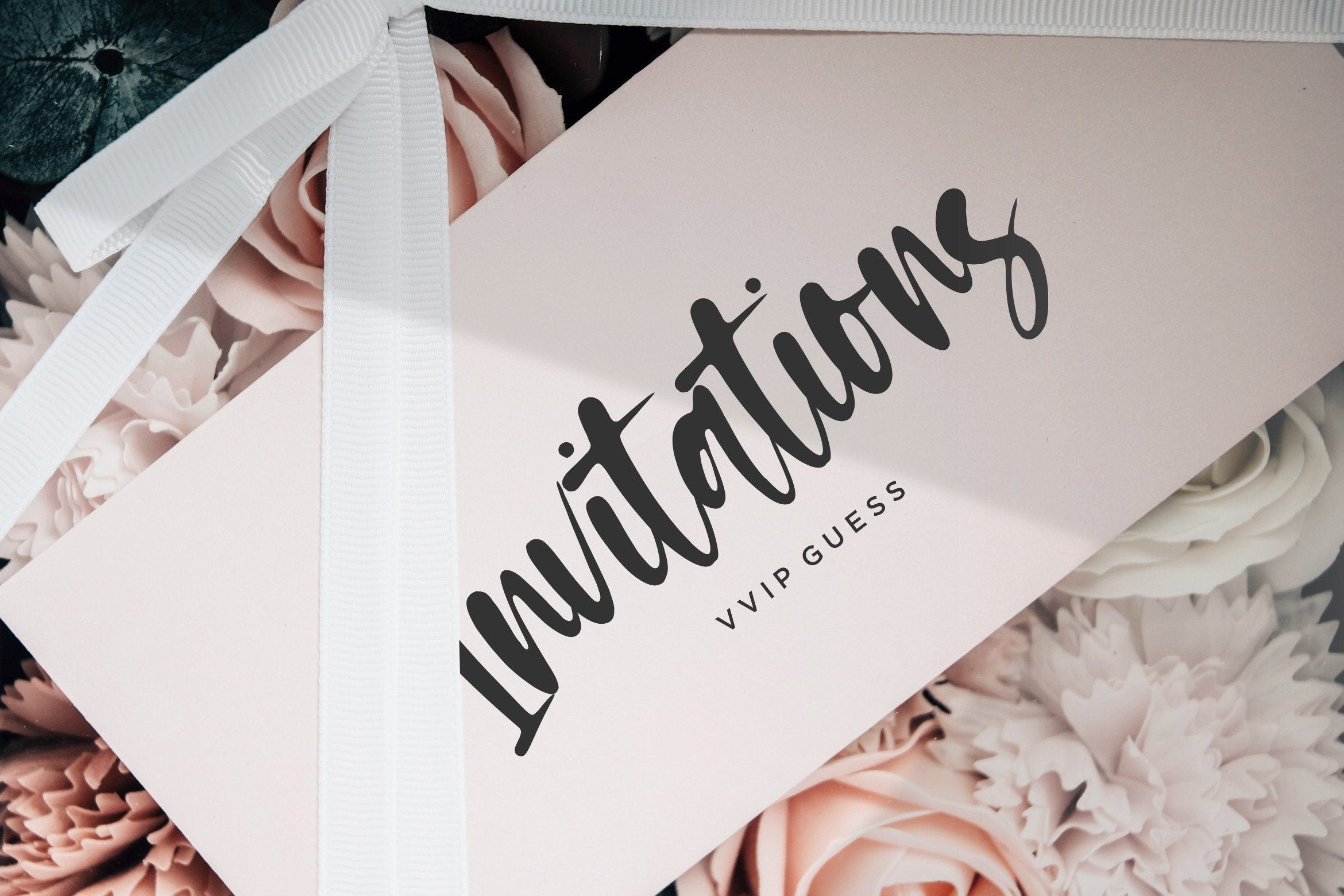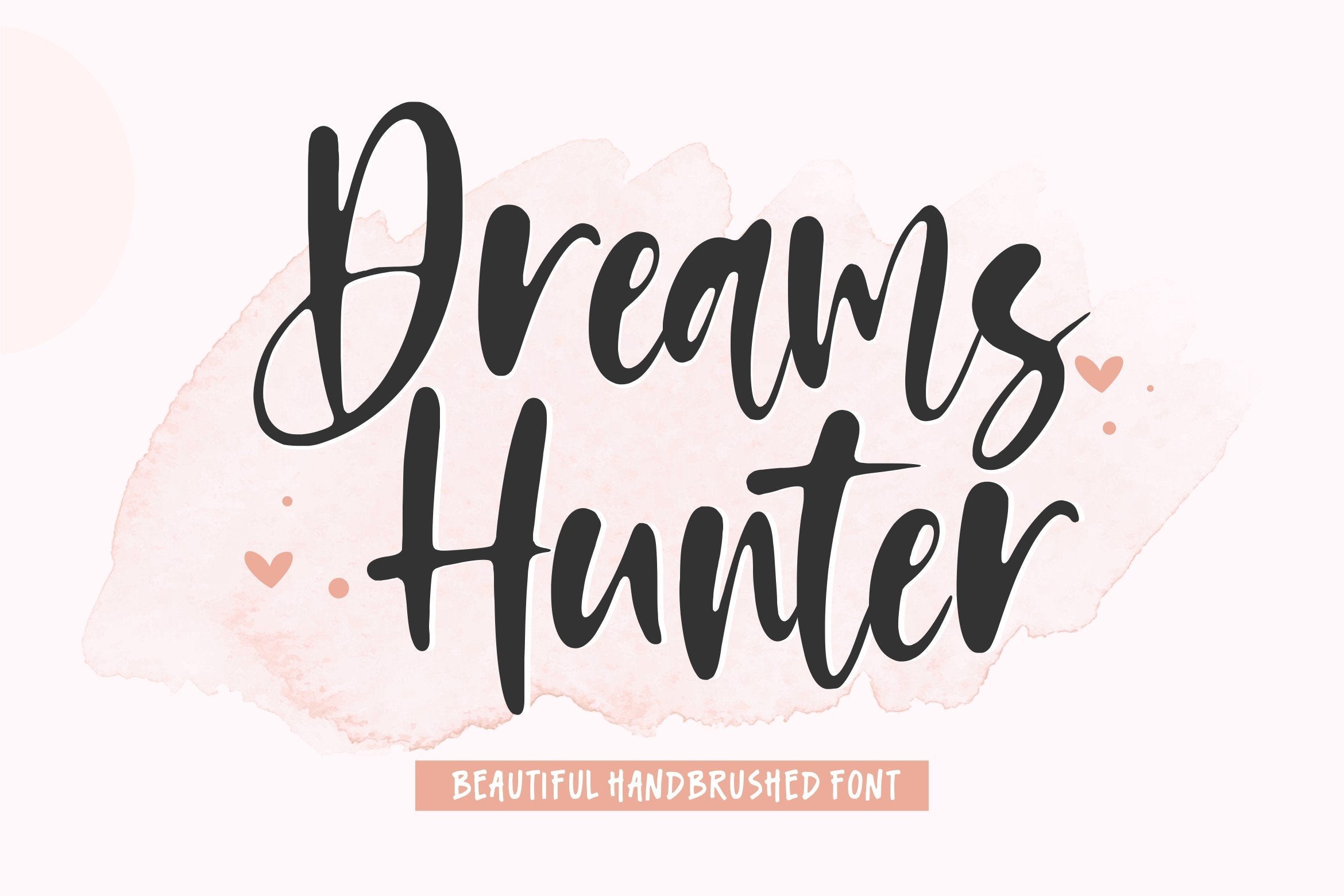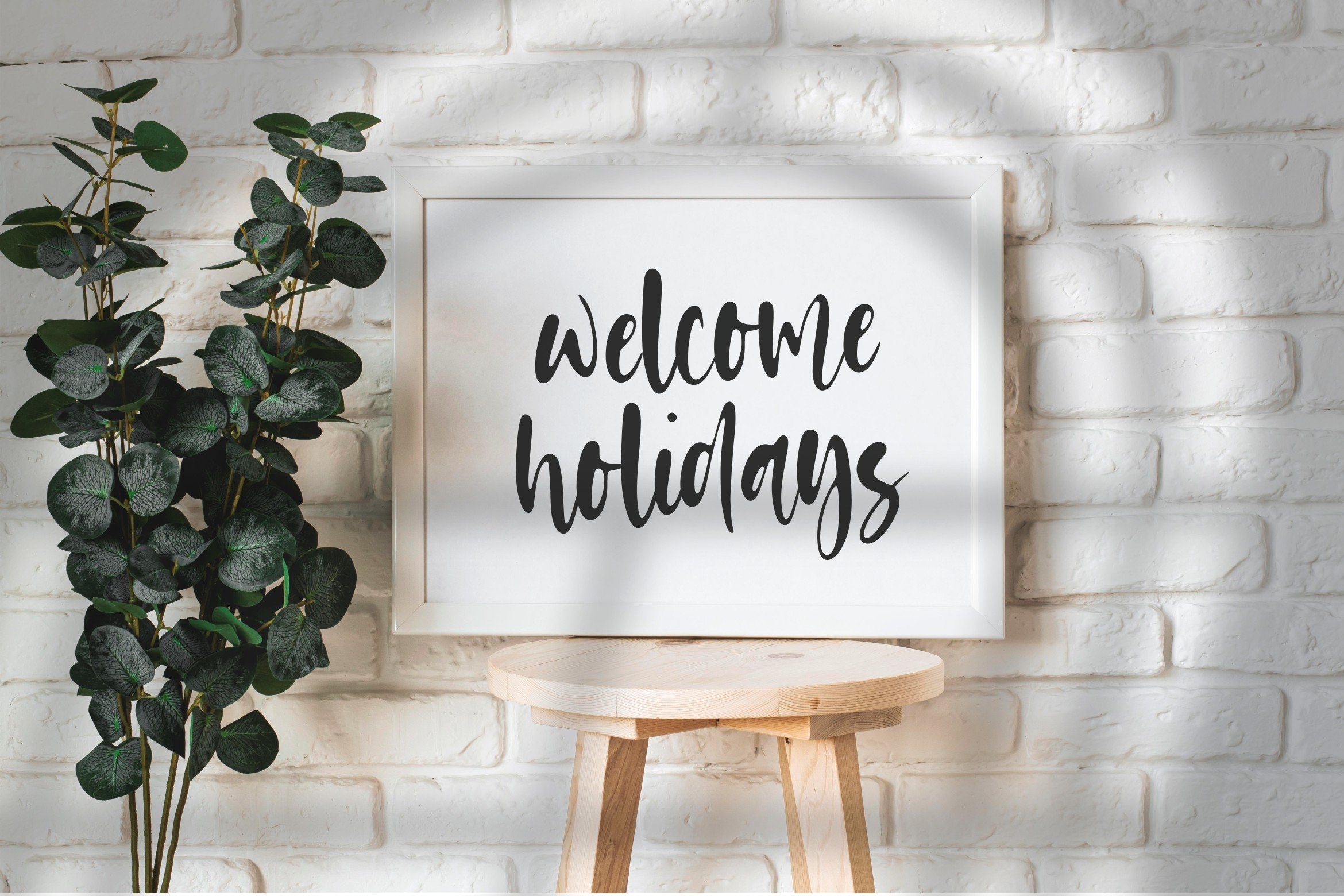
About Dreams Hunter Beautiful Handbrushed Font
Introducing by Balpirick Studio. Proudly Present, Dreams Hunter Font. Dreams Hunter is a Beautiful Handbrushed Font. Dreams Hunter is a beautiful hand-brushed font. Dreams Hunter is a flowing handwritten font, described by an elegant touch, perfect for your favorite projects. Fall in love with its incredibly distinct and timeless style and use it to create spectacular designs! This font includes TTF, OTF and WOFF, Dreams Hunter also multilingual support. Enjoy the font, feel free to comment or feedback, send me PM or email. Thank you!